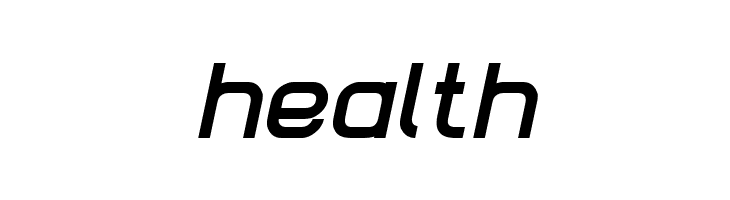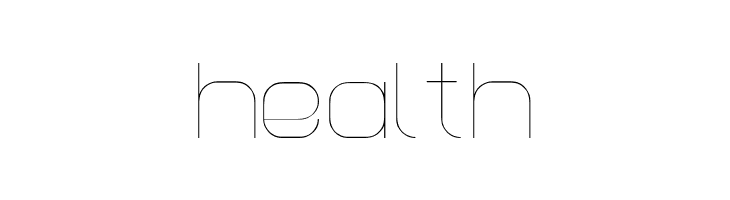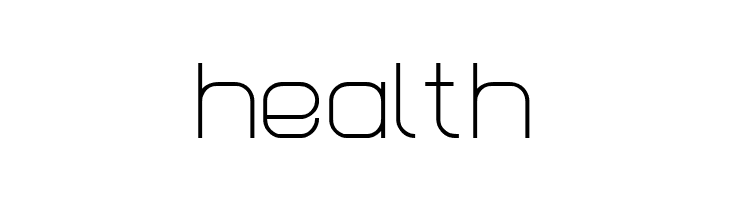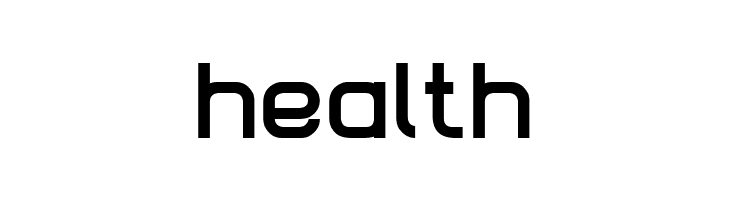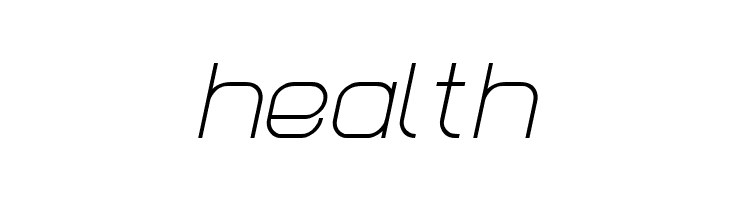
• Bluefish Light Demo
• Bluefish Black Demo Italic
• Milkyway Hotel Personal Use
A modern, geometric font with a futuristic style and sharp angles.
• Miama Nueva
An elegant script font with flowing, cursive strokes and sophisticated design.
• Icons-Color
• Gibberesque
A playful, pixelated font with a hand-drawn, quirky style.
• CentaureaDemo
A hand-drawn, sketch-like font with a unique, artistic flair.
• MaceriamSimplex
A bold, geometric stencil font with sharp angles and clean lines.
• Typha Var02Demo
A playful, pattern-filled decorative font with a hand-drawn style.
• Atures 100 PERSONAL USE ONLY
A modern, geometric font with thin, uniform lines and a minimalist style.
• Atures 500 PERSONAL USE ONLY
A modern, geometric font with clean lines and a futuristic look.
• Atures 700 PERSONAL USE ONLY
A modern, geometric font with bold lines and a futuristic style.
• Atures 300 PERSONAL USE ONLY
A modern, geometric font with clean lines and a minimalist aesthetic.
• Atures 900 PERSONAL USE ONLY
• Black Fox Personal Use Only
A bold, dynamic script font with high contrast and flowing connections.
A bold, brush-style font with dynamic and fluid characters.